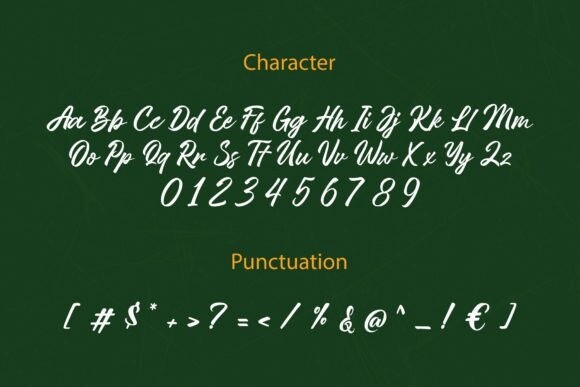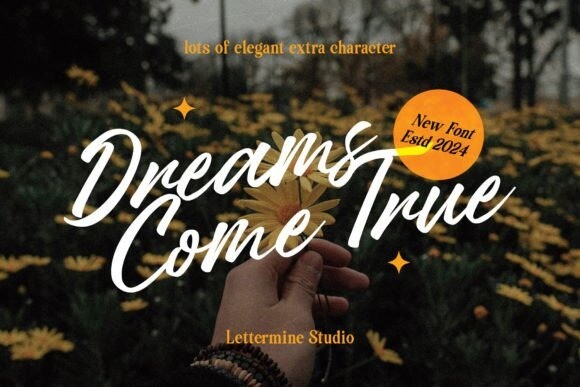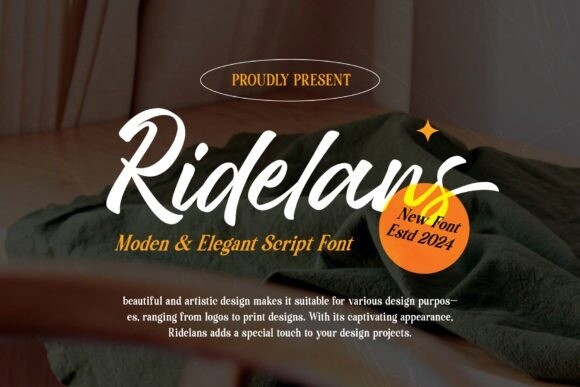
Ridelans Font
Designer: Lettermine
Ridelans Font is a charming script font imbued with elegance and grace. Its fluid strokes and delicate curves evoke a sense of sophistication and romance. Perfect for invitations, branding, and elegant designs, Ridelans adds a touch of refinement and charm to any project, captivating audiences with its timeless allure.